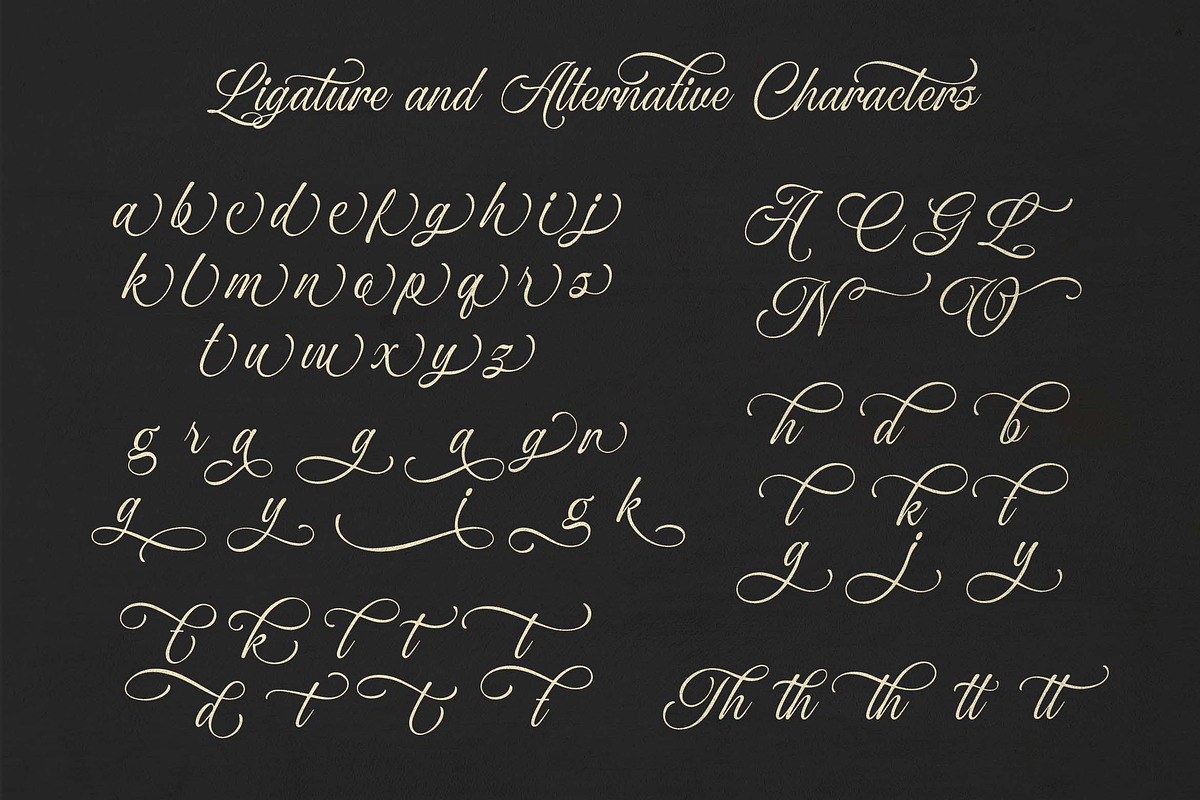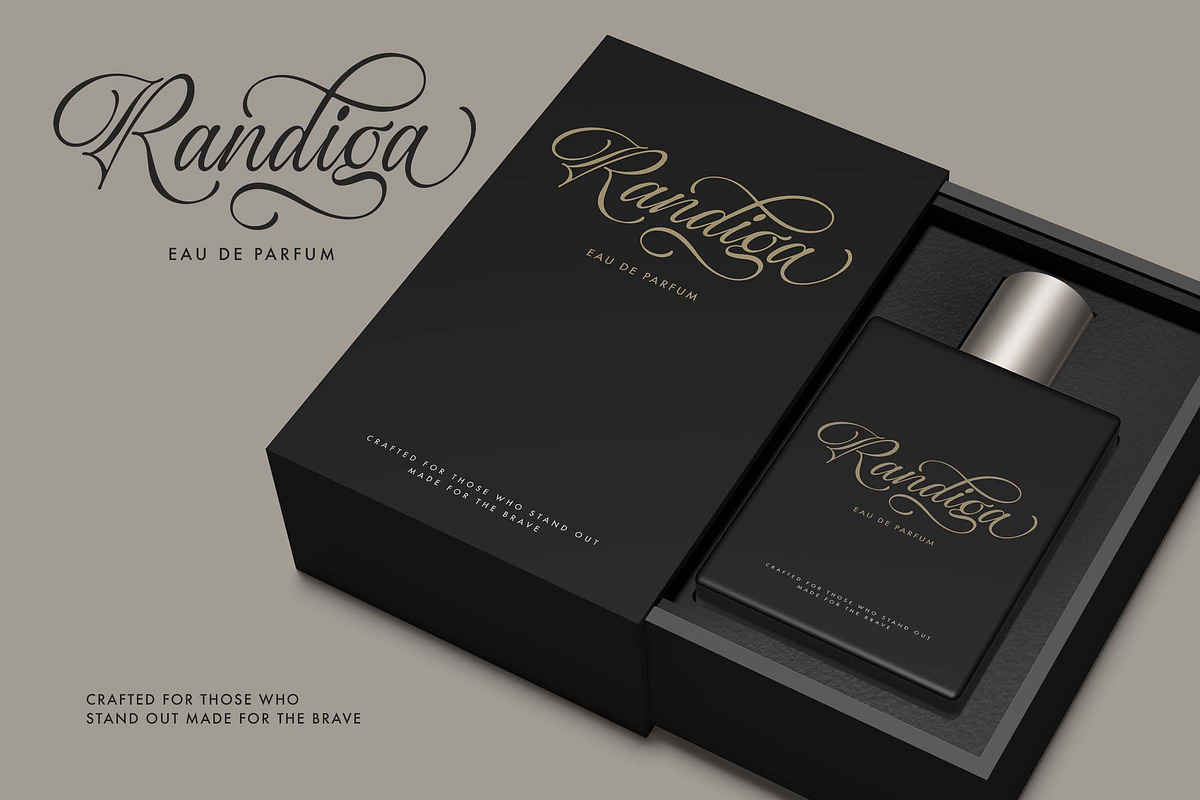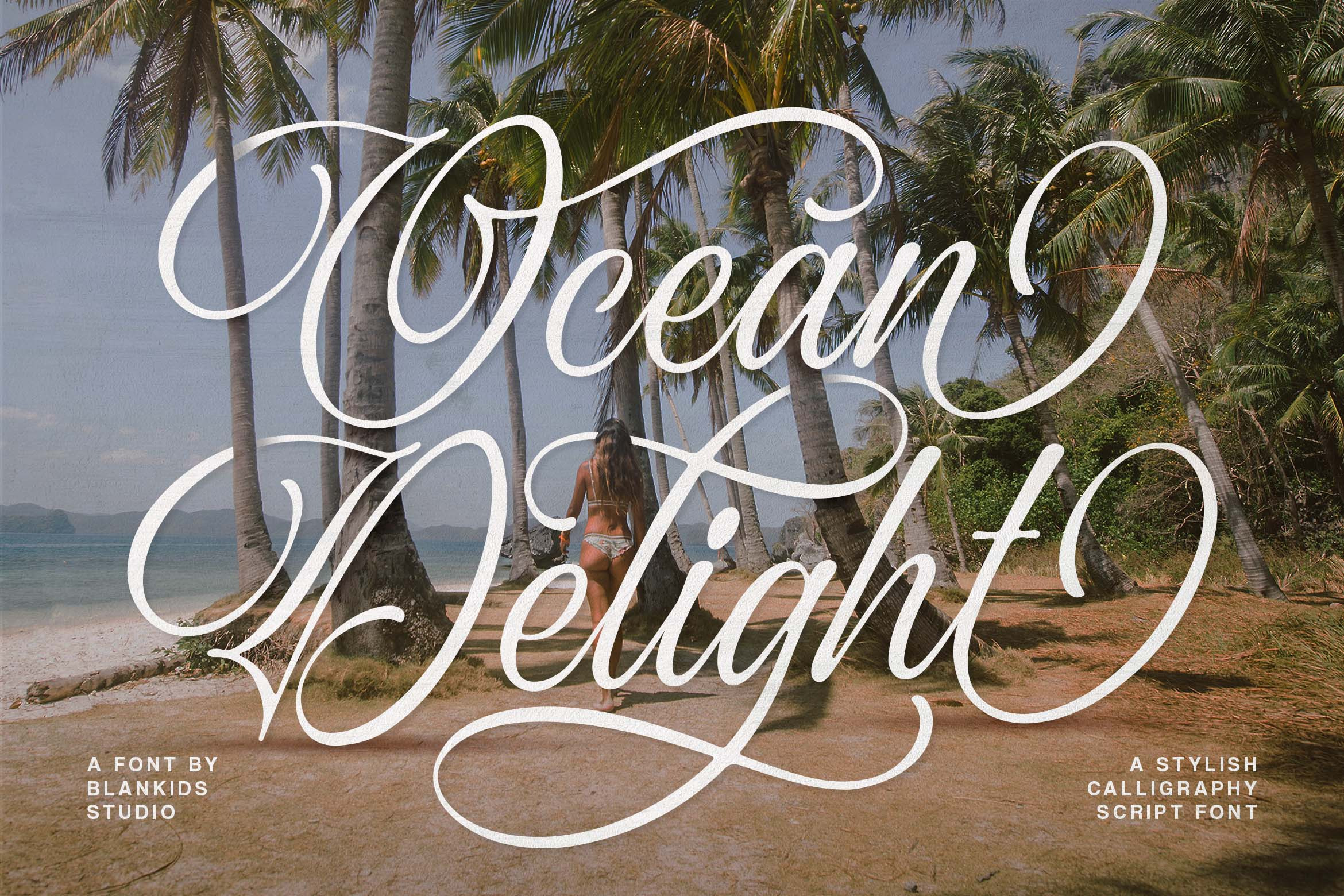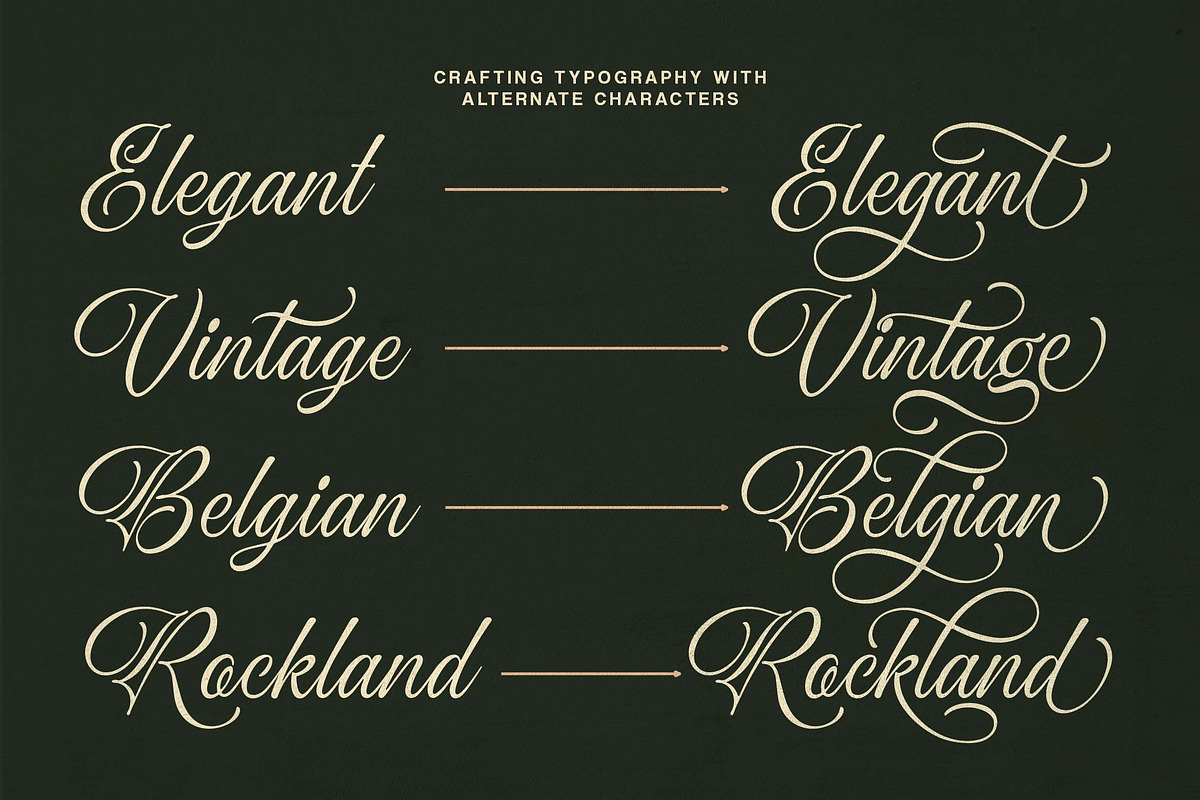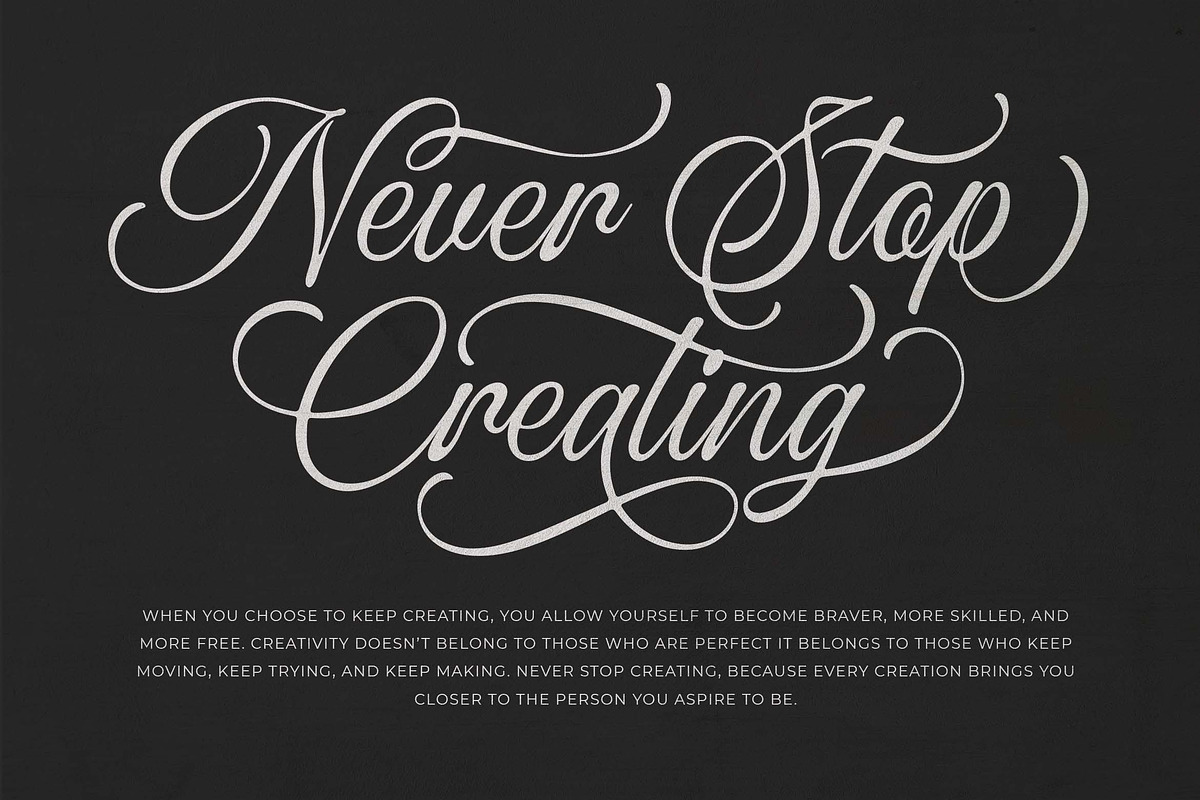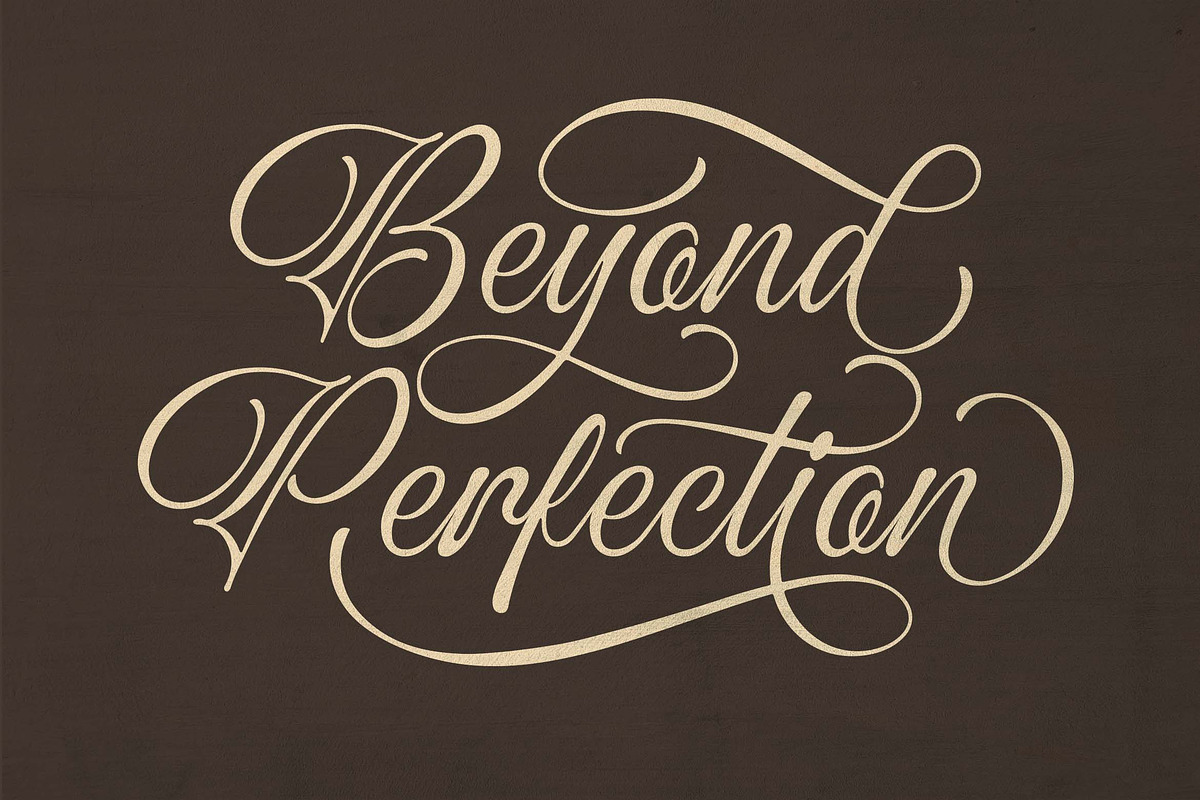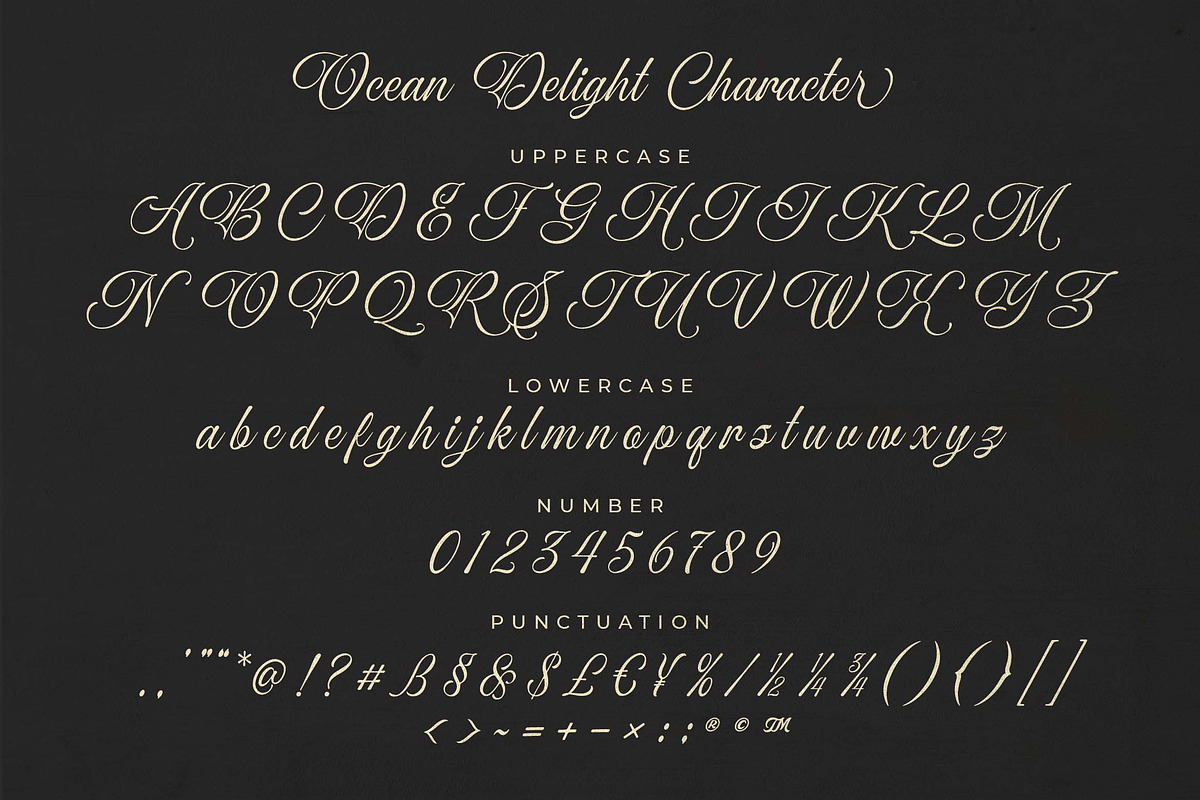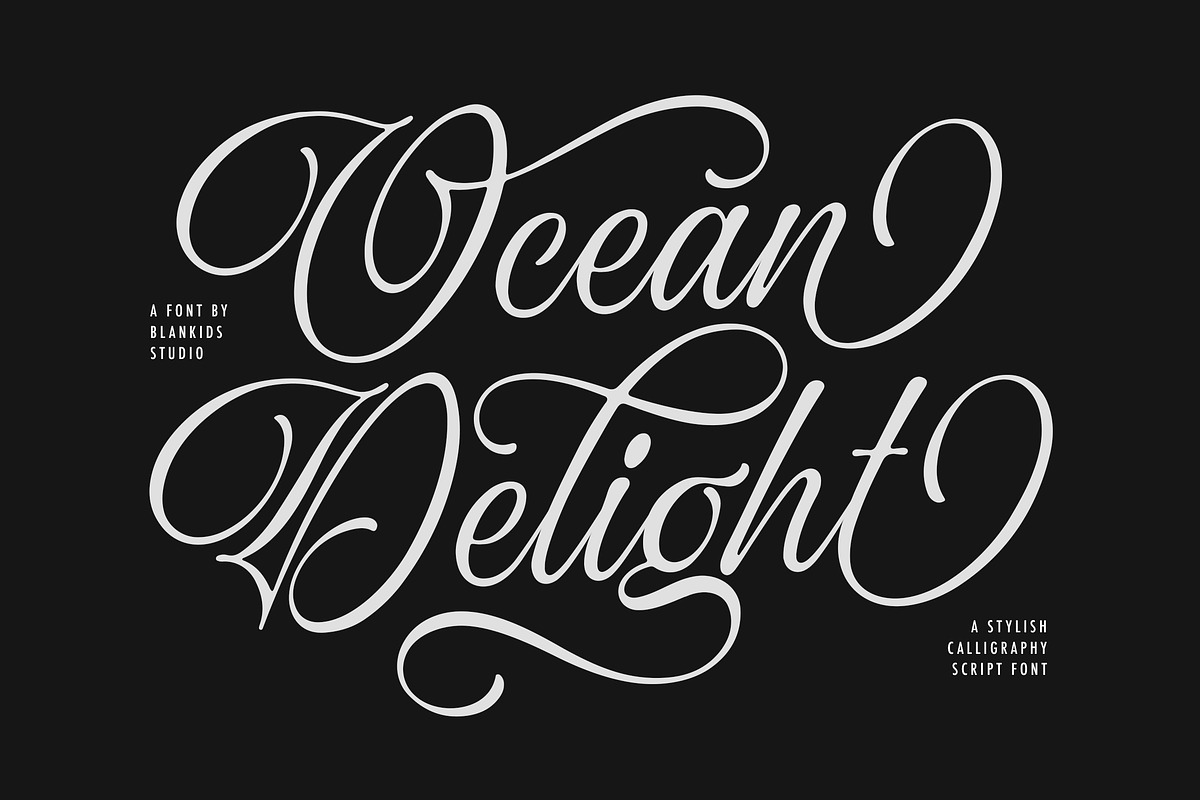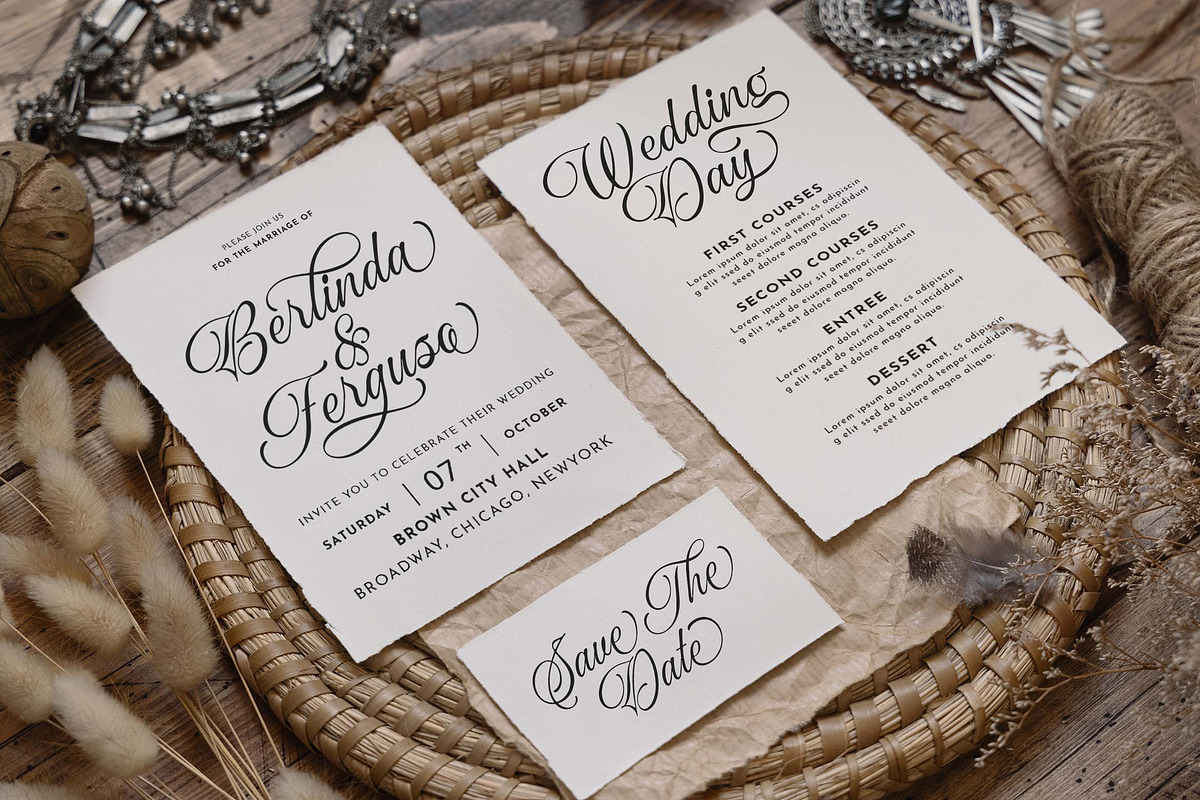
Ocean Delight a Stylish Script Font
Ocean Delight – A Stylish Calligraphy Script Font
Ocean Delight is an elegant and expressive calligraphy script font crafted with smooth curves, flowing strokes, and refined letterforms. Designed to bring a sense of luxury and romance, this font combines classic calligraphy aesthetics with a modern, stylish touch perfect for designers who want their work to look graceful and captivating.
Inspired by the beauty of the ocean and the serenity of tropical landscapes, Ocean Delight delivers a visual rhythm that feels both calm and sophisticated. Its decorative swashes and beautifully shaped alternates make it ideal for premium branding and standout typography.
Key Features :
- Elegant calligraphy script style with flowing, artistic strokes
- Beautiful alternates & swashes for enhanced customization
- Natural ligatures for smooth and harmonious letter connections
- Perfect for large display use such as titles, logos, and headlines